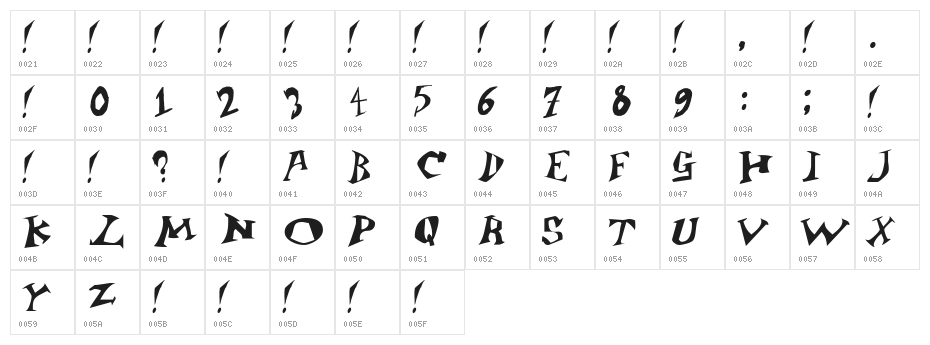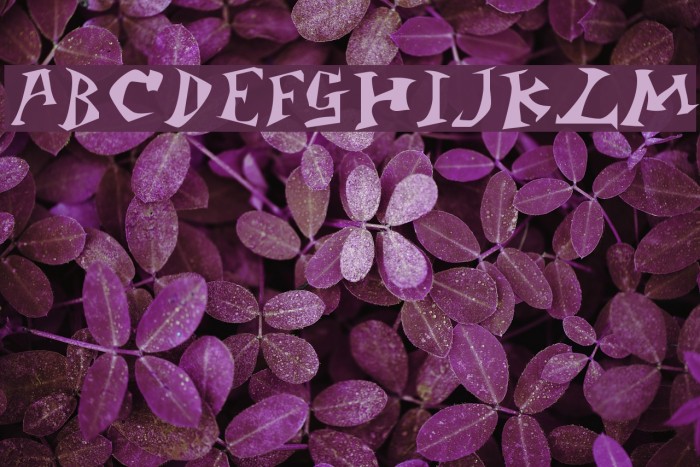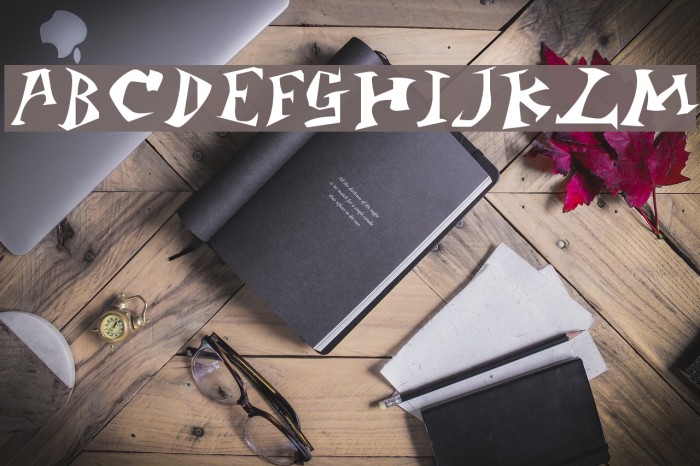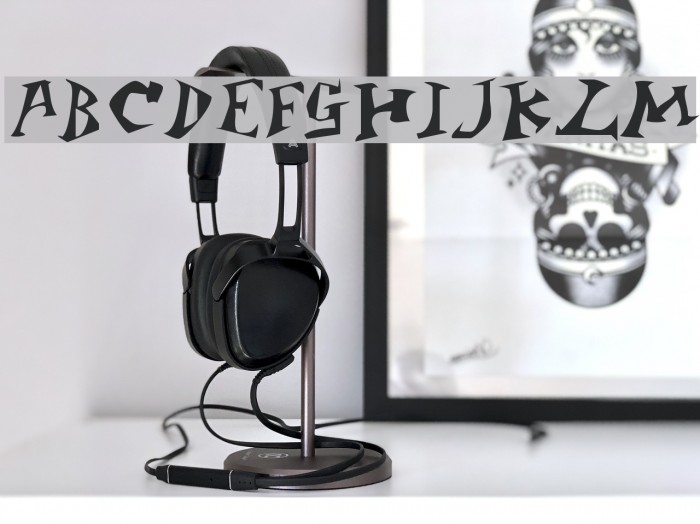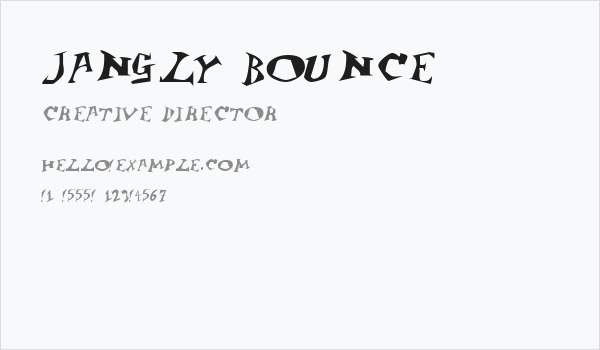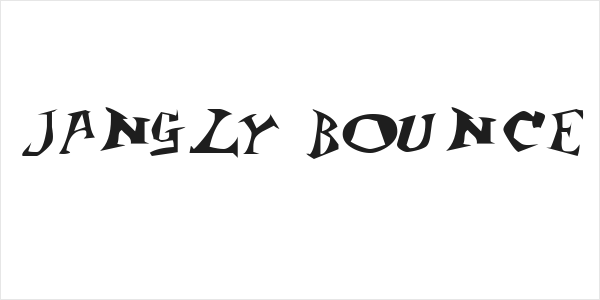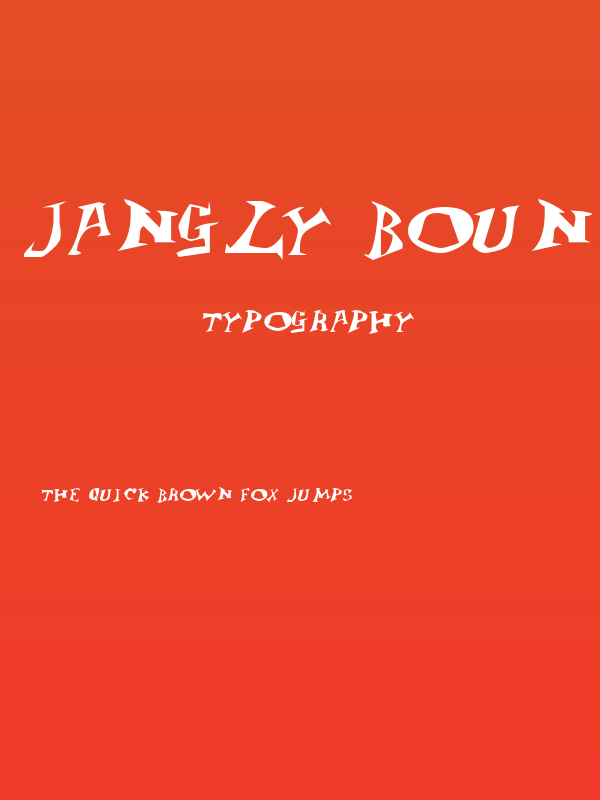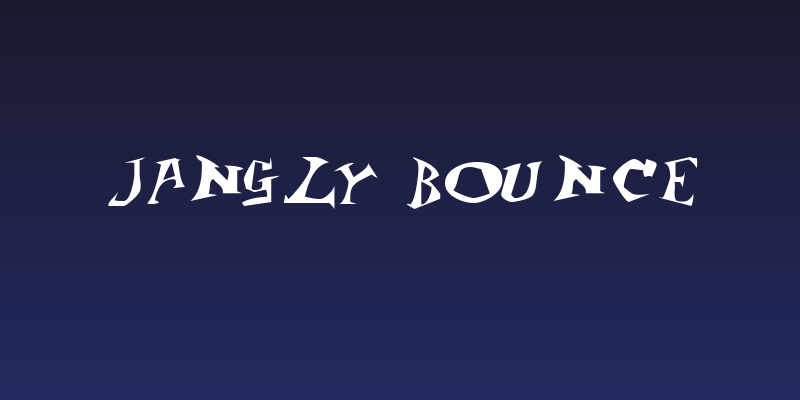
Jangly Bounce Font
Jangly Bounce Description
This font exhibits a playful and dynamic style, characterized by its uneven baseline and exaggerated curves. The letters appear to be in motion, giving a sense of energy and spontaneity. The uppercase and lowercase letters maintain a consistent whimsical flair, with sharp angles and varying stroke widths that add to its quirky personality. The numbers follow the same lively design, ensuring uniformity across all characters. Special characters are integrated seamlessly, maintaining the font's overall bouncy and animated appearance. This font is perfect for projects that require a fun and engaging visual impact.